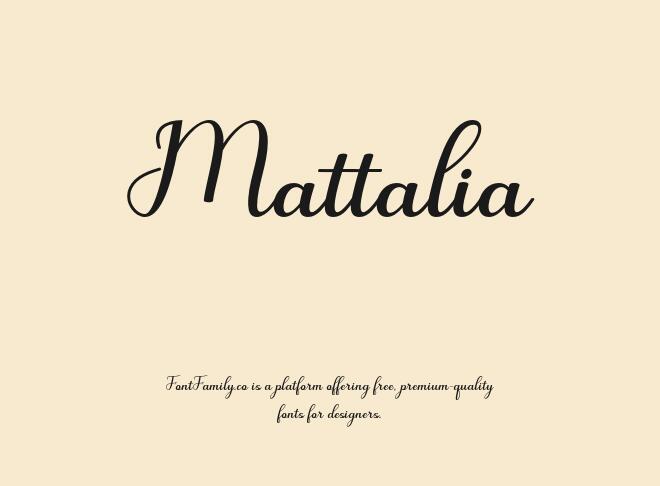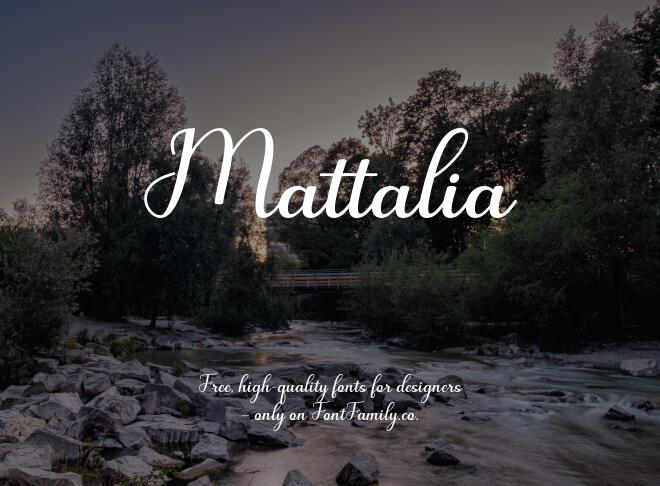
Mattalia Font
Mattalia Font is a beautifully crafted script typeface by Matthew Smith Design. This handwritten font exudes an elegant charm that brings a refined touch to any design. It's a fantastic choice for branding, invitations, and social media graphics. Mattalia Font stands out for its smooth curves and delicate flourishes, making it a comparable alternative to popular fonts like the Samantha Script. With its decorative elements, it's an excellent choice for those looking to add a personalized, creative touch to their designs. Despite its intricate details, Mattalia Font maintains a clean, readable style, making it versatile for a wide range of design projects. This font is a must-have for designers and creatives looking to enrich their typography collection with a unique and stylish script typeface.